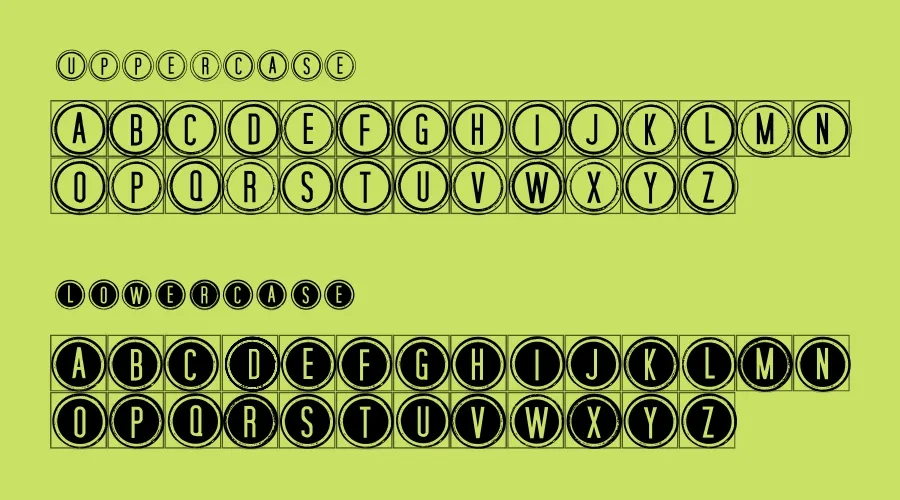
About Backspacer Font
Brian Kelly and Nancy Mazzei created Backspacer Font. This adorable and beautiful typeface belongs to the category of elegant fonts known as decorative text designs. The free font file is available in OTF and TTF versions.
This typeface stands out from other typefaces and it is unique. Millions of people have already used this font's designs in their projects. In this typeface, each character has a wall surrounding its shape that looks like a circle.
The 106 characters in this typeface, which has a total of 78 glyphs, include alphabets, digits, and special characters. In CSS, this typeface is specified. As a result, this typeface is easily readable.